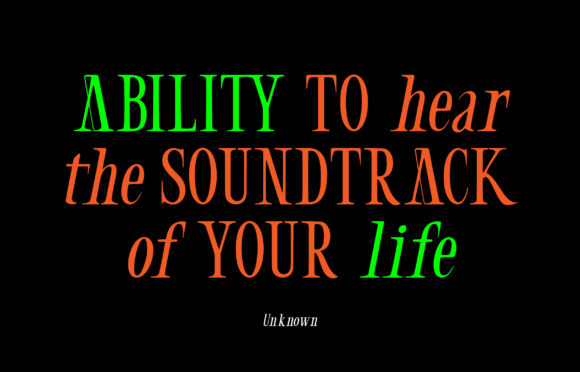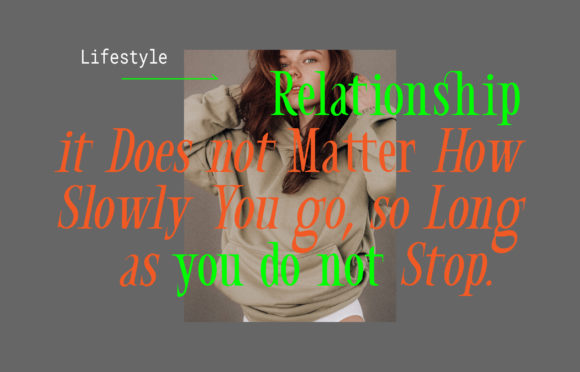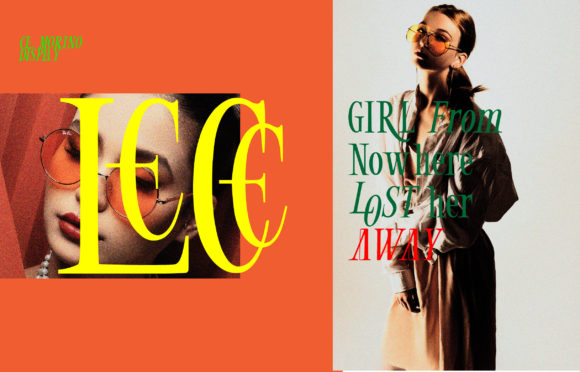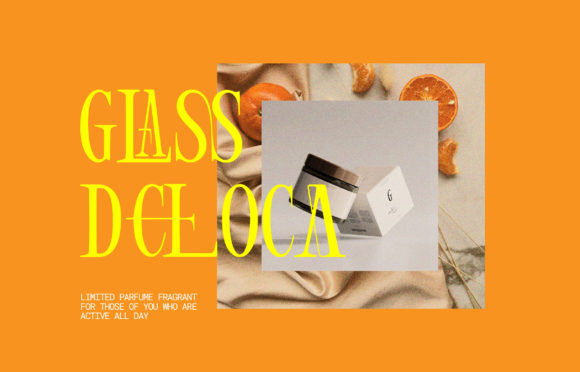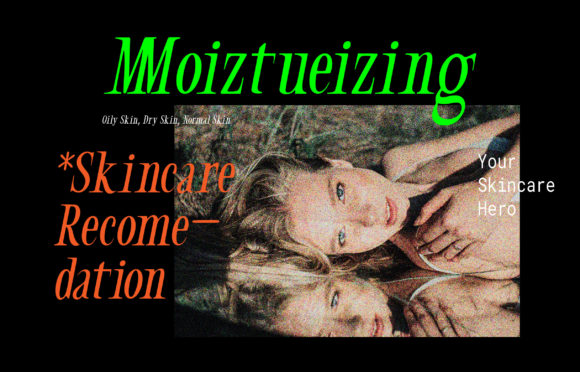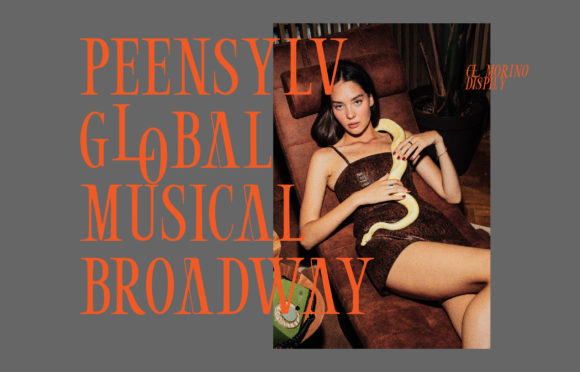
Introducing El Morino Font: Elevate Your Designs with Elegance and Trendy Flair
In the world of typography, a font can make or break a design. It’s the foundation upon which your creative vision is built, and choosing the right one can be a daunting task. If you’re on the hunt for a typeface that exudes elegance and trendy sophistication, look no further than El Morino Font. This stunning serif font is about to become your new go-to for all your design projects, and for good reason.
The Essence of El Morino Font
El Morino is an elegant and trendy serif font that has been crafted to add a touch of refinement and modernity to any project. Its unique blend of classic and contemporary elements makes it the perfect choice for designers and crafters who want to create something truly special. Whether you’re working on a branding campaign, packaging design, or a digital project, El Morino is sure to impress.
One of the standout features of El Morino Font is its PUA (Private Use Area) encoding. This means that you can access all of the glyphs and swashes with ease, giving you unparalleled creative control over your typography. With PUA encoding, you can effortlessly navigate through the font’s extensive character set, including ligatures, stylistic alternates, and ornaments, to create truly unique and eye-catching designs.
Why Choose El Morino Font?
So, what sets El Morino apart from other serif fonts on the market? Here are just a few reasons why designers and crafters are falling in love with this stunning typeface:
- Elegant and Trendy: El Morino boasts a sleek and sophisticated design that’s perfect for projects that require a touch of luxury and refinement.
- PUA Encoded: With PUA encoding, you can access all of the font’s glyphs and swashes, making it easy to create complex and visually appealing typography.
- Versatile: El Morino is suitable for a wide range of design projects, from branding and packaging to digital and print materials.
- User-Friendly: The font is easy to use and navigate, even for those who are new to working with PUA encoded fonts.
Applications for Designers and Crafters
El Morino Font is an incredibly versatile typeface that can be used in a variety of design projects. Here are some ideas to get you started:
- Branding and Logo Design: Create a lasting impression with a custom logo that showcases your brand’s personality and style.
- Packaging Design: Elevate your product packaging with elegant and eye-catching typography that stands out on store shelves.
- Digital Design: Use El Morino to create stunning digital content, including social media graphics, blog posts, and website headers.
- Print Design: Add a touch of sophistication to your print materials, including brochures, flyers, and business cards.
Tips for Working with El Morino Font
To get the most out of El Morino Font, here are a few tips to keep in mind:
- Experiment with Swashes: Don’t be afraid to get creative with the font’s swashes and glyphs to add a personal touch to your designs.
- Play with Font Sizes: El Morino looks great in a variety of font sizes, so don’t be afraid to experiment with different sizes to create visual interest.
- Pair with Other Fonts: Try pairing El Morino with other fonts to create a unique and visually appealing typography combination.
In conclusion, El Morino Font is an exceptional serif font that offers a perfect blend of elegance and trendy flair. Its PUA encoding makes it easy to use and navigate, while its versatility and user-friendly design make it suitable for a wide range of design projects. Whether you’re a designer, crafter, or simply someone who appreciates great typography, El Morino is sure to become a valuable addition to your font collection.
| Font Name | El Morino Font |
| Author | Synthz. |